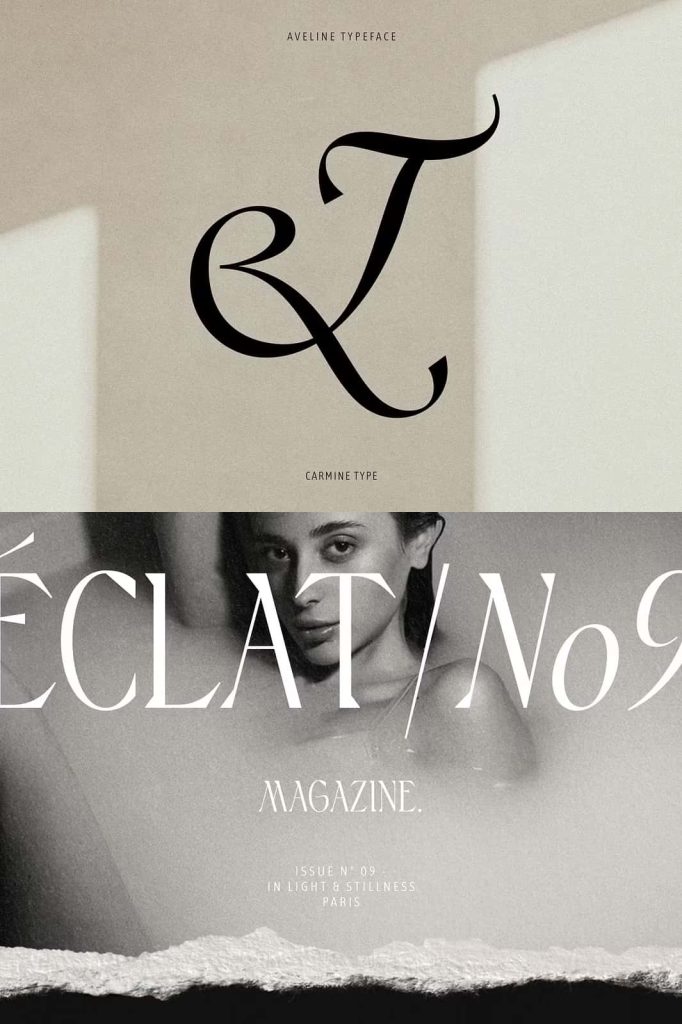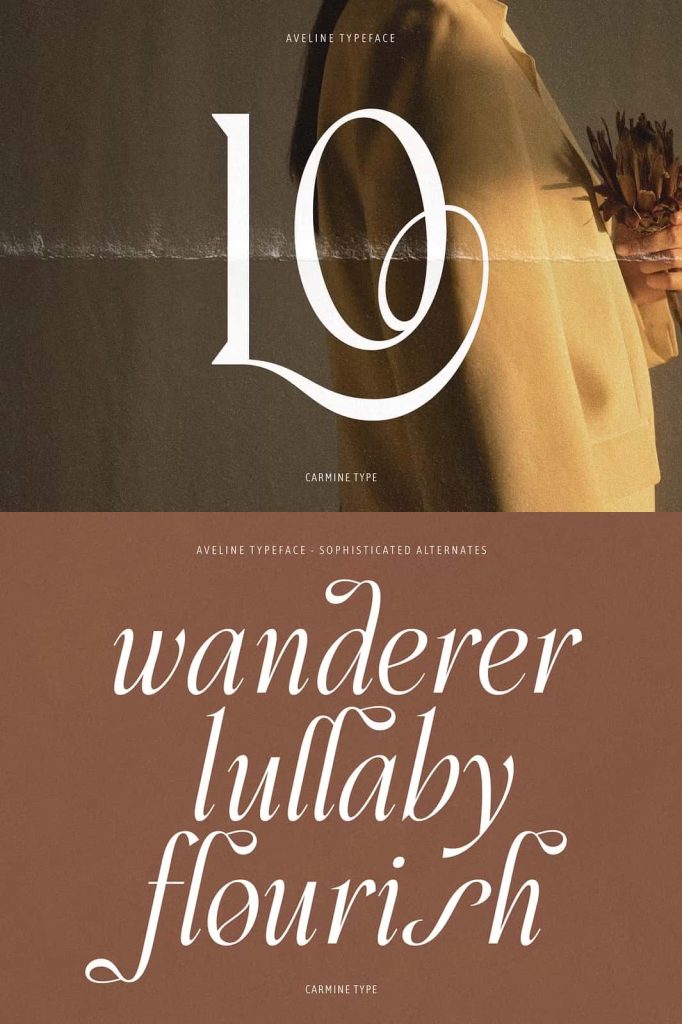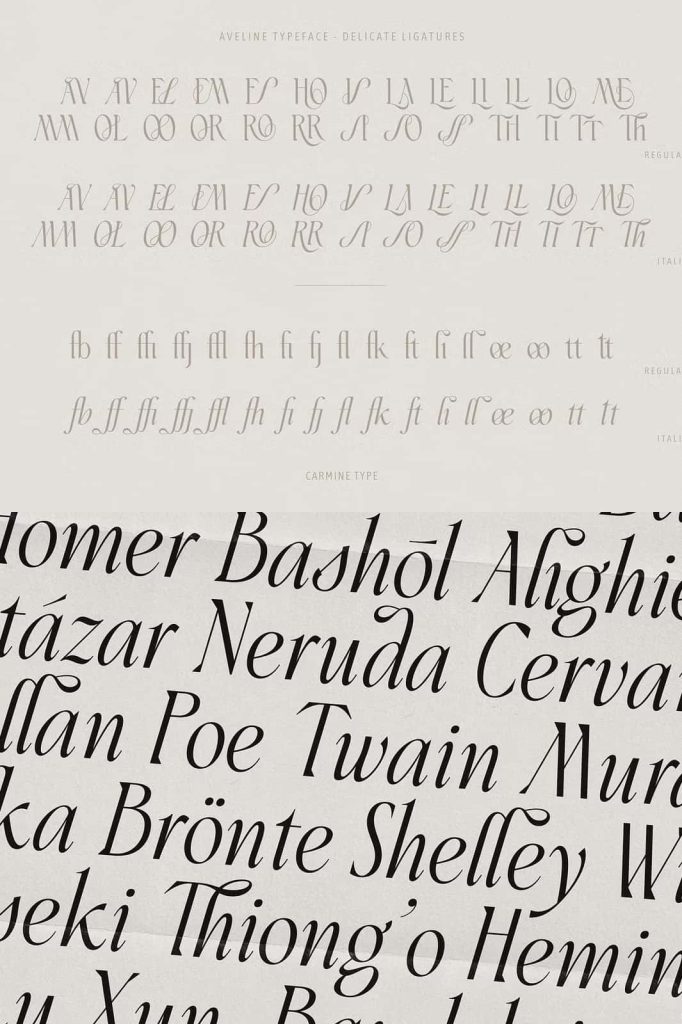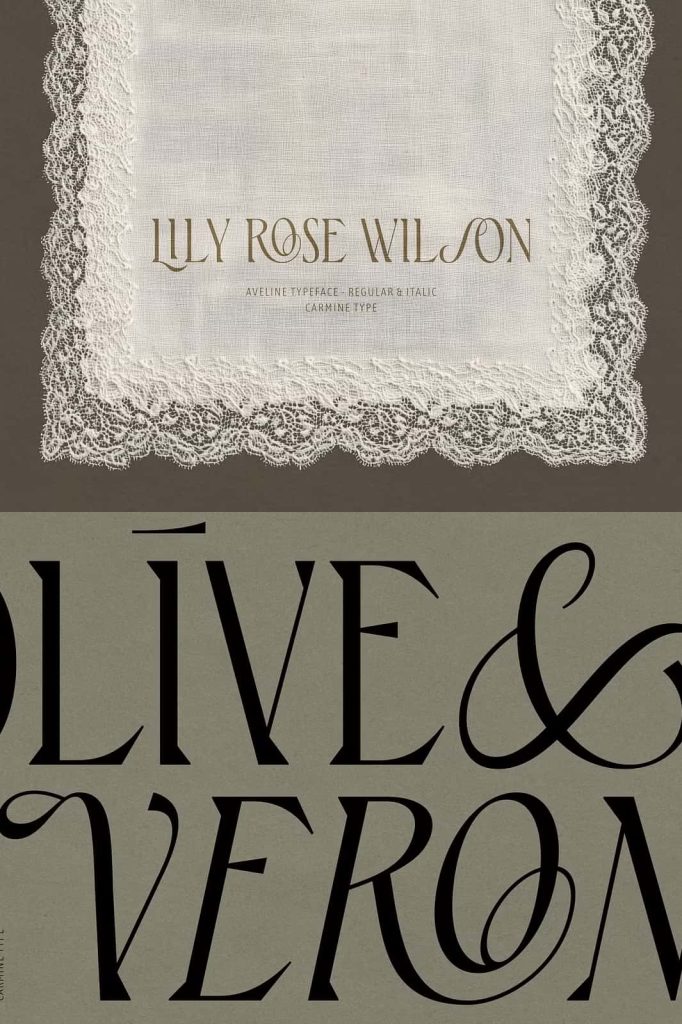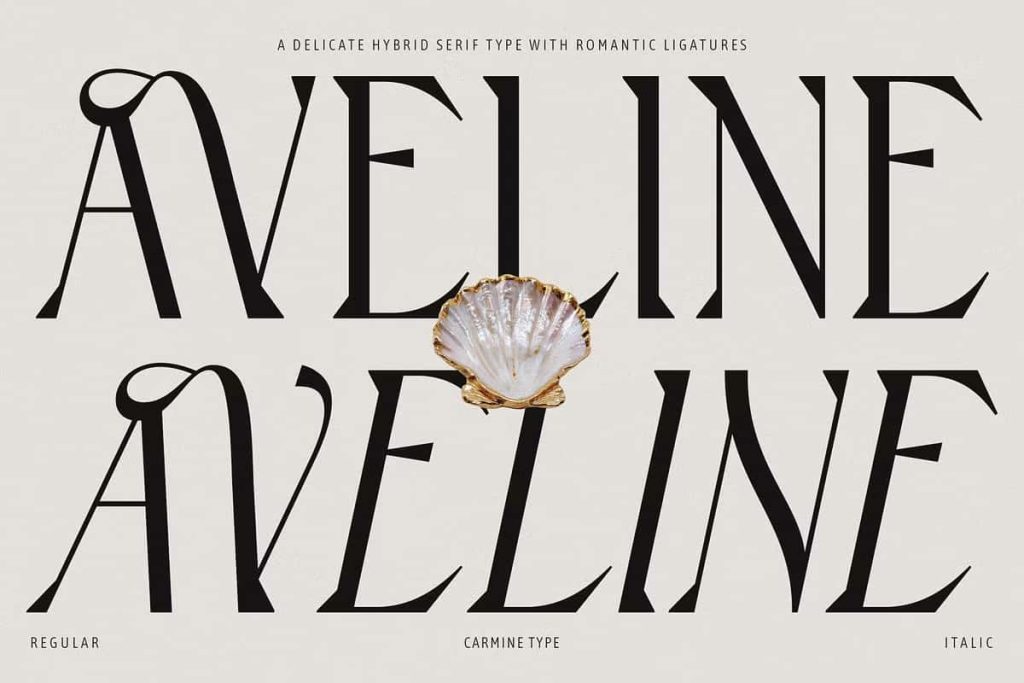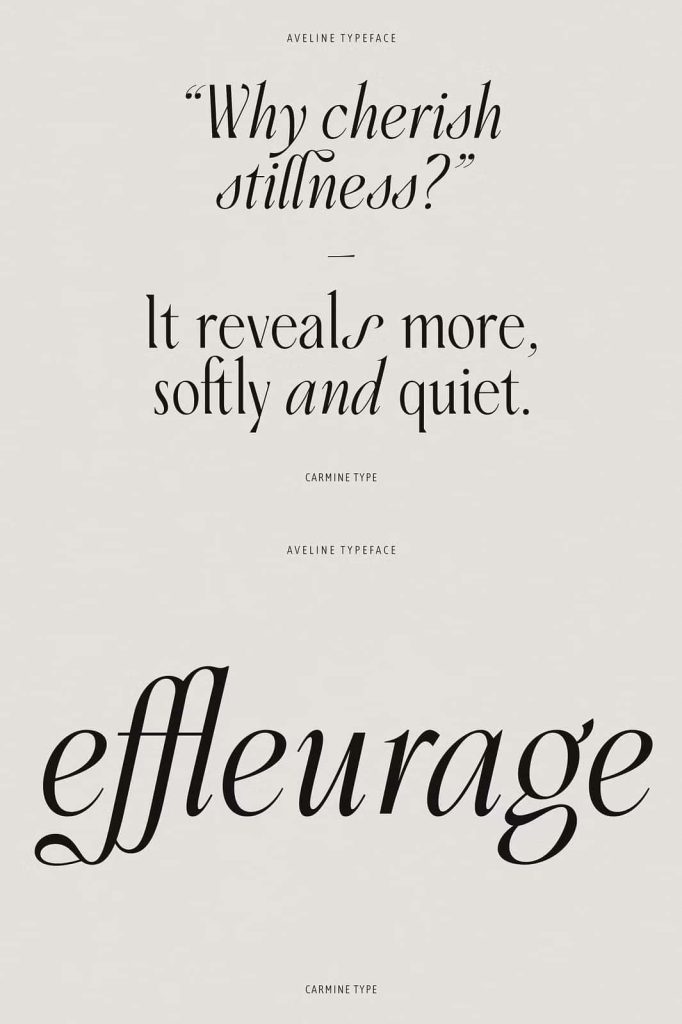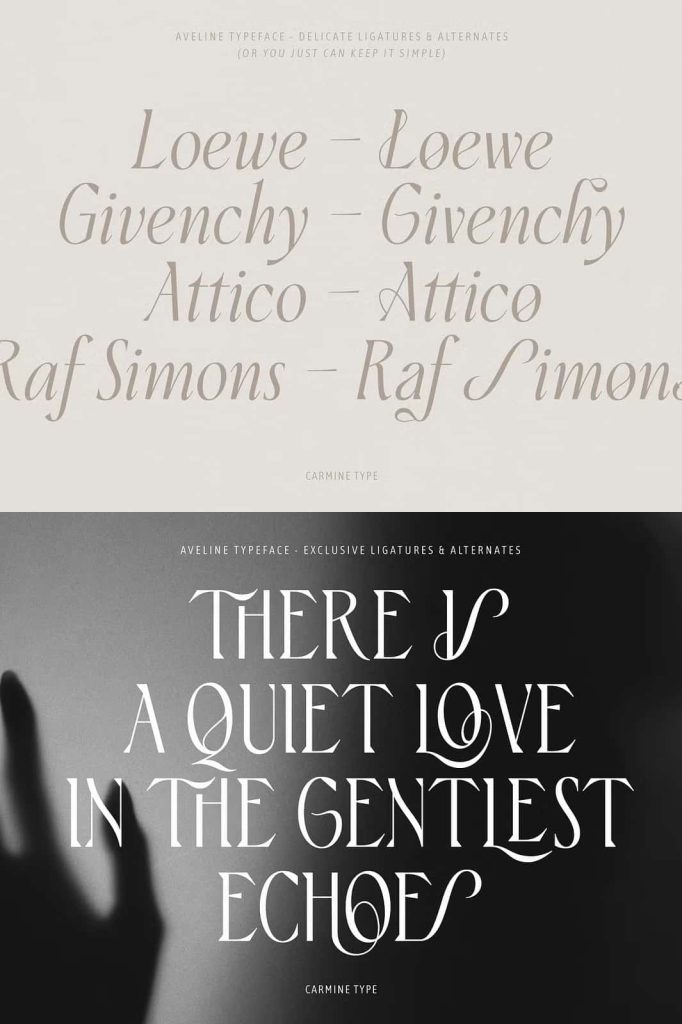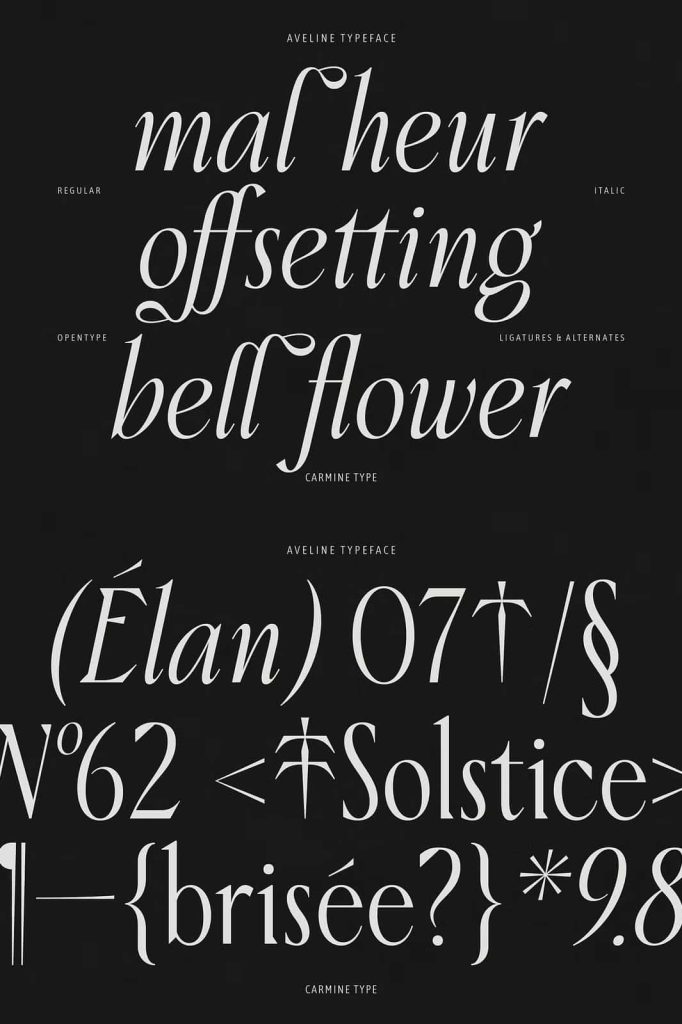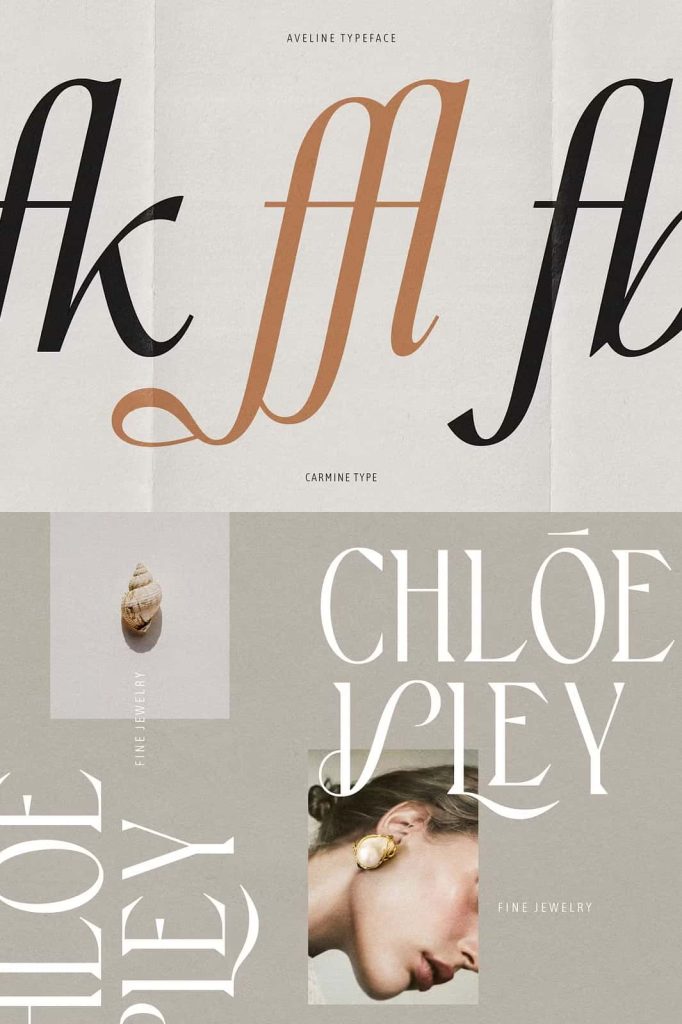
Aveline Hybrid Serif Font: Where Modern Clarity Meets Timeless Charm
Aveline is a versatile hybrid serif font that blends the clean precision of a modern sans with the subtle elegance of a serif. This unique combination allows designers to create work that feels both contemporary and refined. Aveline does not follow a single typographic tradition—instead, it merges two worlds to deliver a balanced and highly functional design tool. Its structure supports clarity, while its details introduce warmth and character, making it suitable for a wide range of creative applications.
Designed primarily for display use, Aveline commands attention with its confident presence. At the same time, it maintains excellent readability, allowing it to perform just as effectively in text blocks. This dual capability makes it a reliable choice for designers who need flexibility without sacrificing visual quality.
A Perfect Fusion of Sans and Serif Design
Aveline stands out because it combines the strengths of both sans serif and serif typography. The clean lines and simplified forms provide a modern and minimal appearance, while the subtle serif details add sophistication and personality. This fusion creates a distinctive visual identity that feels fresh yet familiar.
The font’s balanced proportions ensure that each letter maintains harmony within a composition. Designers can use Aveline to create layouts that feel structured and cohesive, whether working on digital interfaces or printed materials. Its ability to adapt to different contexts makes it an essential tool for modern design projects.
Designed for Display with Strong Readability
Aveline performs exceptionally well in display settings, where typography plays a central role in capturing attention. Its clean structure and refined details make headlines and titles stand out without appearing overly decorative. Designers can rely on Aveline to deliver a strong visual impact while maintaining a professional and polished look.
Despite its display-focused design, Aveline also reads beautifully in text blocks. The font’s thoughtful spacing and proportions enhance legibility, ensuring that longer passages remain clear and comfortable to read. This versatility allows designers to use a single typeface across multiple elements of a project, creating consistency and efficiency.
Roman and Italic Styles for Creative Flexibility
Aveline includes two carefully crafted styles: Roman and Italic. The Roman style provides a stable and structured foundation, making it ideal for headings, body text, and general use. Its clean and balanced appearance ensures that it performs well in both large and small sizes.
The Italic style introduces a dynamic and expressive variation. It adds movement and emphasis, allowing designers to highlight key elements or create visual contrast within a layout. The combination of these two styles gives Aveline the flexibility to support a wide range of design needs, from formal compositions to more creative and experimental layouts.
Ideal for Branding, Editorial, and Digital Design
Aveline adapts seamlessly to branding projects, where consistency and identity play a crucial role. Its hybrid nature allows brands to communicate both modernity and sophistication, making it suitable for industries such as fashion, technology, and lifestyle. Designers can use Aveline to build a strong and recognizable visual identity that resonates with audiences.
In editorial design, Aveline enhances readability while adding a refined aesthetic. It works effectively for magazines, books, and digital publications, where clear typography and visual appeal must coexist. The font’s ability to function in both headlines and body text ensures a cohesive and engaging reading experience.
For digital design, Aveline provides clarity across different screen sizes and resolutions. Its clean forms and balanced spacing make it a practical choice for websites, applications, and user interfaces. Designers can use it to create layouts that feel modern, organized, and easy to navigate.
A Typeface That Balances Style and Function
Aveline offers more than visual appeal—it delivers a balance between style and usability. Its hybrid design allows it to adapt to various creative directions while maintaining a consistent identity. Designers can rely on it to produce work that feels both elegant and contemporary.
By choosing Aveline, you gain access to a font that supports creativity and precision. It transforms simple text into a refined visual element, helping your designs stand out with clarity and sophistication. Whether used for bold headlines or detailed text, Aveline consistently delivers a polished and professional result.